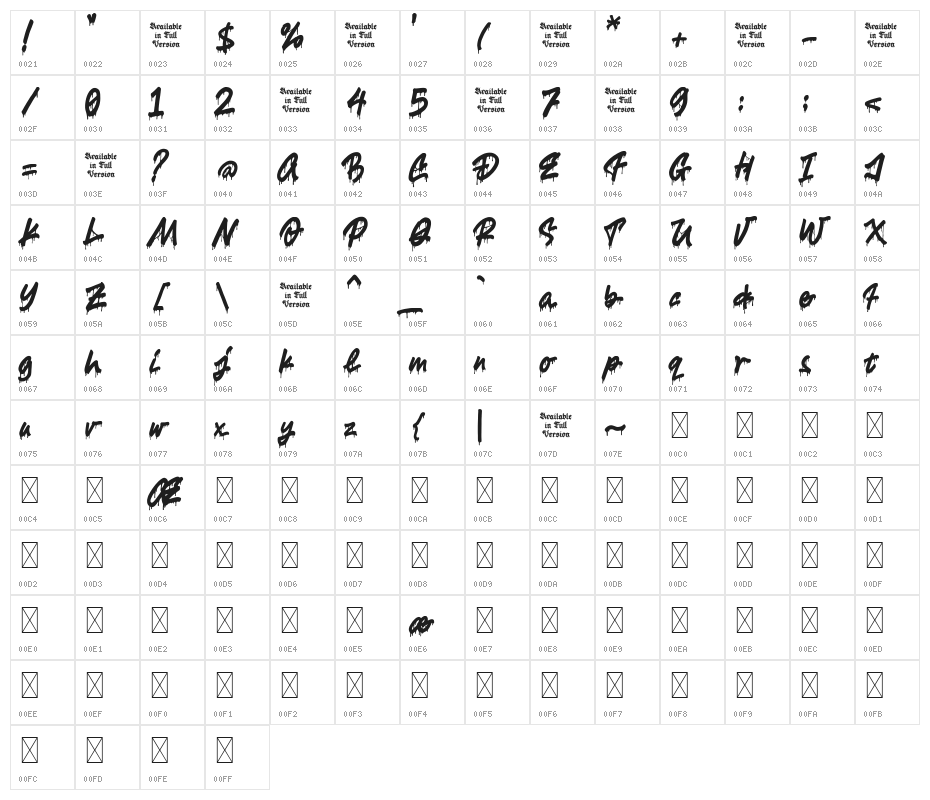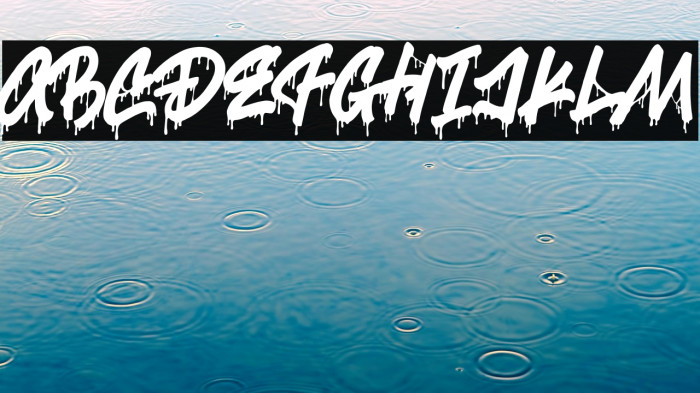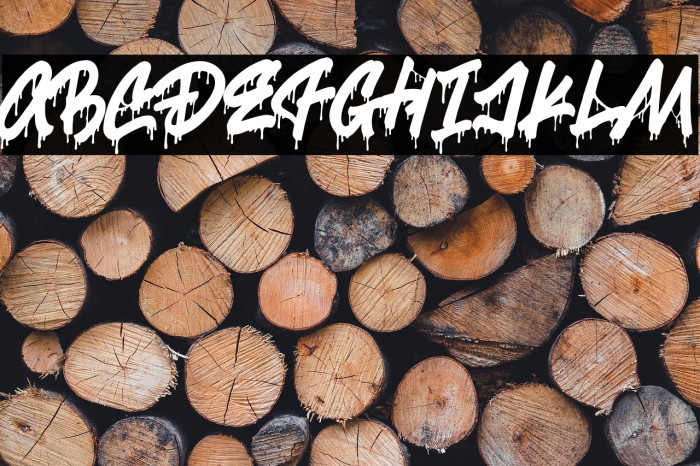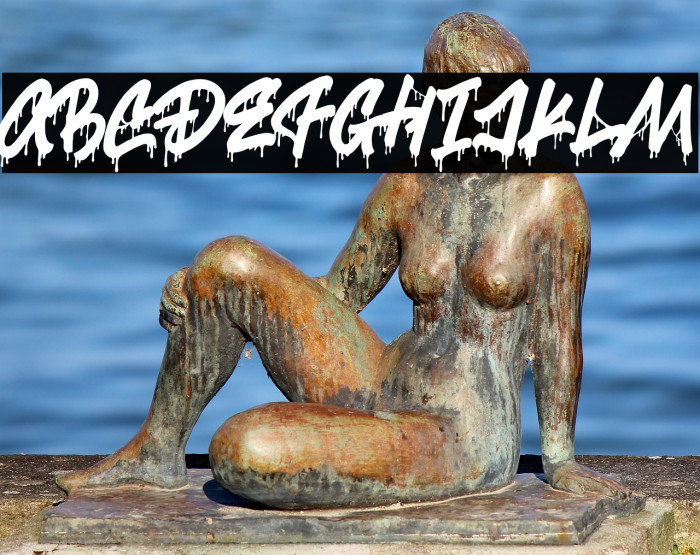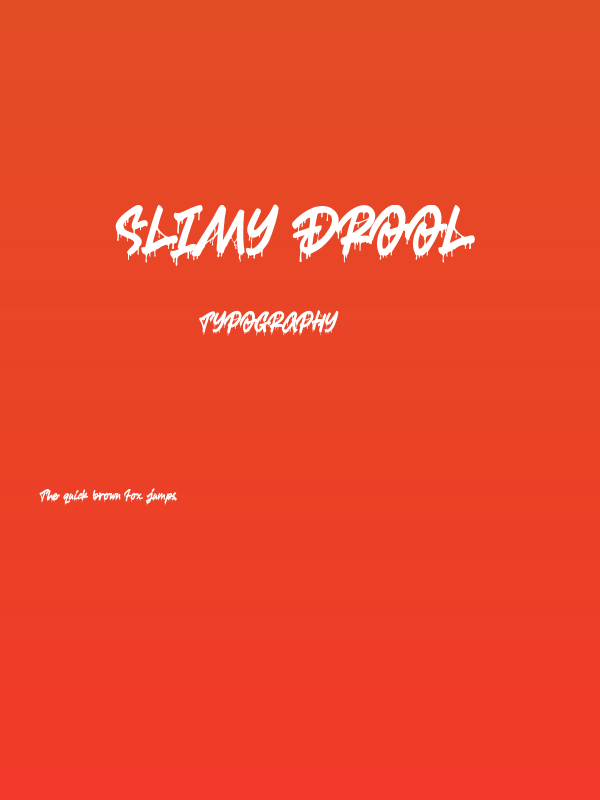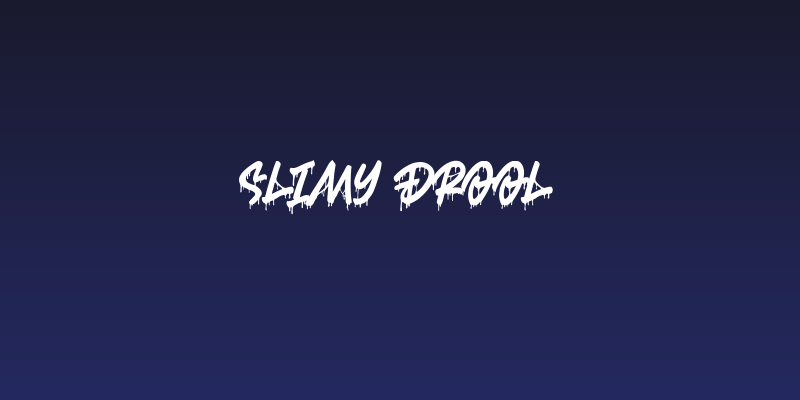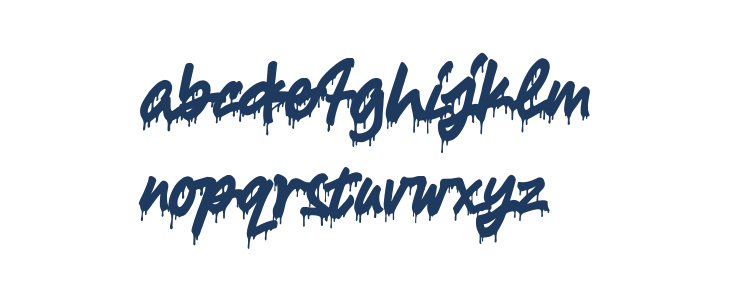
Slimy Drool Font
Slimy Drool Description
This font features a unique and eye-catching design with a dripping, liquid-like effect that gives it a slimy appearance. Each character appears as though it is melting or oozing, creating a dynamic and somewhat eerie visual impact. The uppercase and lowercase letters maintain a consistent style, with bold strokes and irregular edges that enhance the font's distinctive look. Numbers and special characters follow the same design principles, ensuring a cohesive appearance across all text elements. This font's playful yet edgy style makes it ideal for creative projects that require a standout, unconventional typeface.
Proposed ProjectsIdeal for Halloween-themed designs, horror movie posters, edgy branding, and creative event invitations.